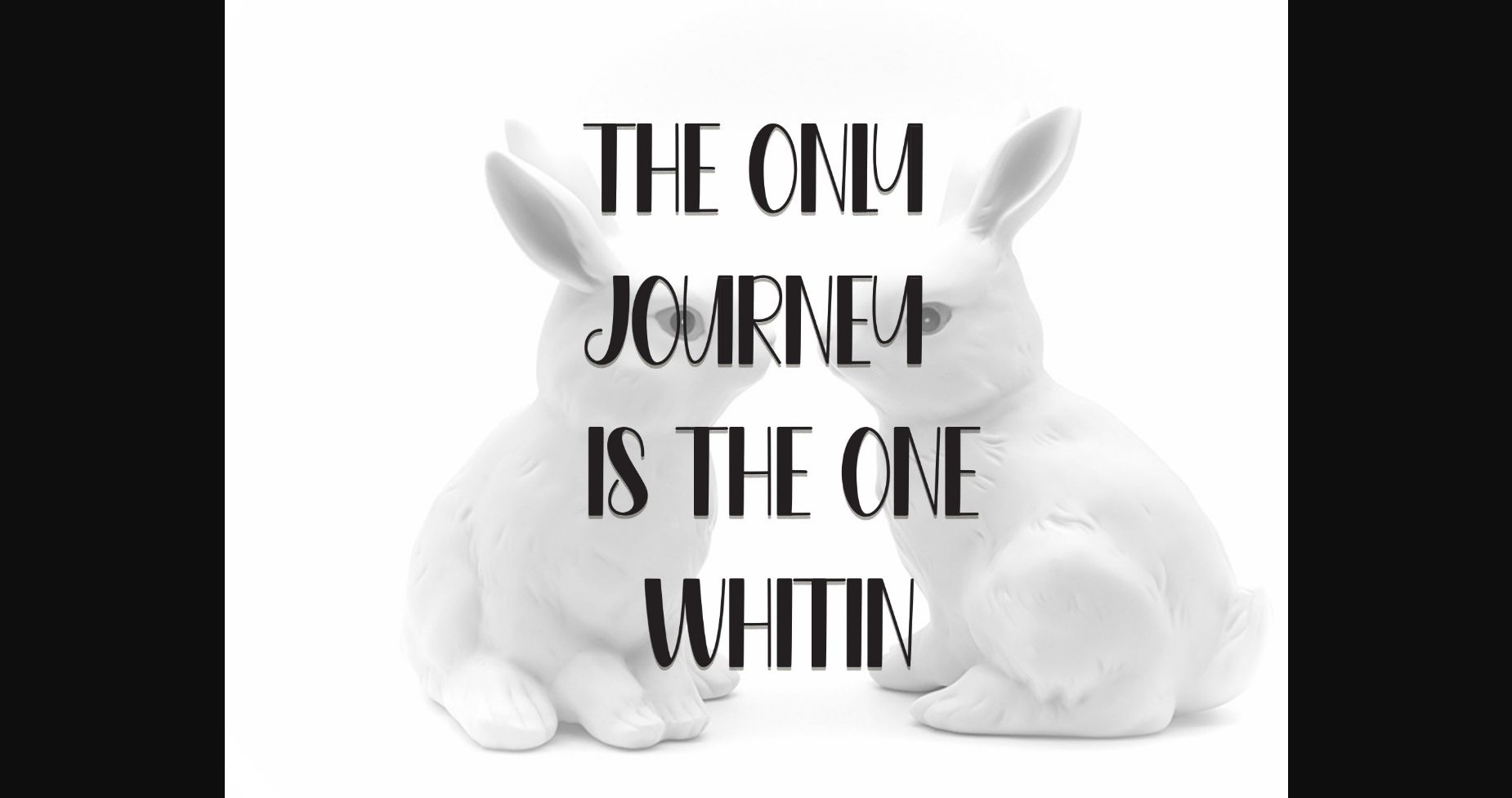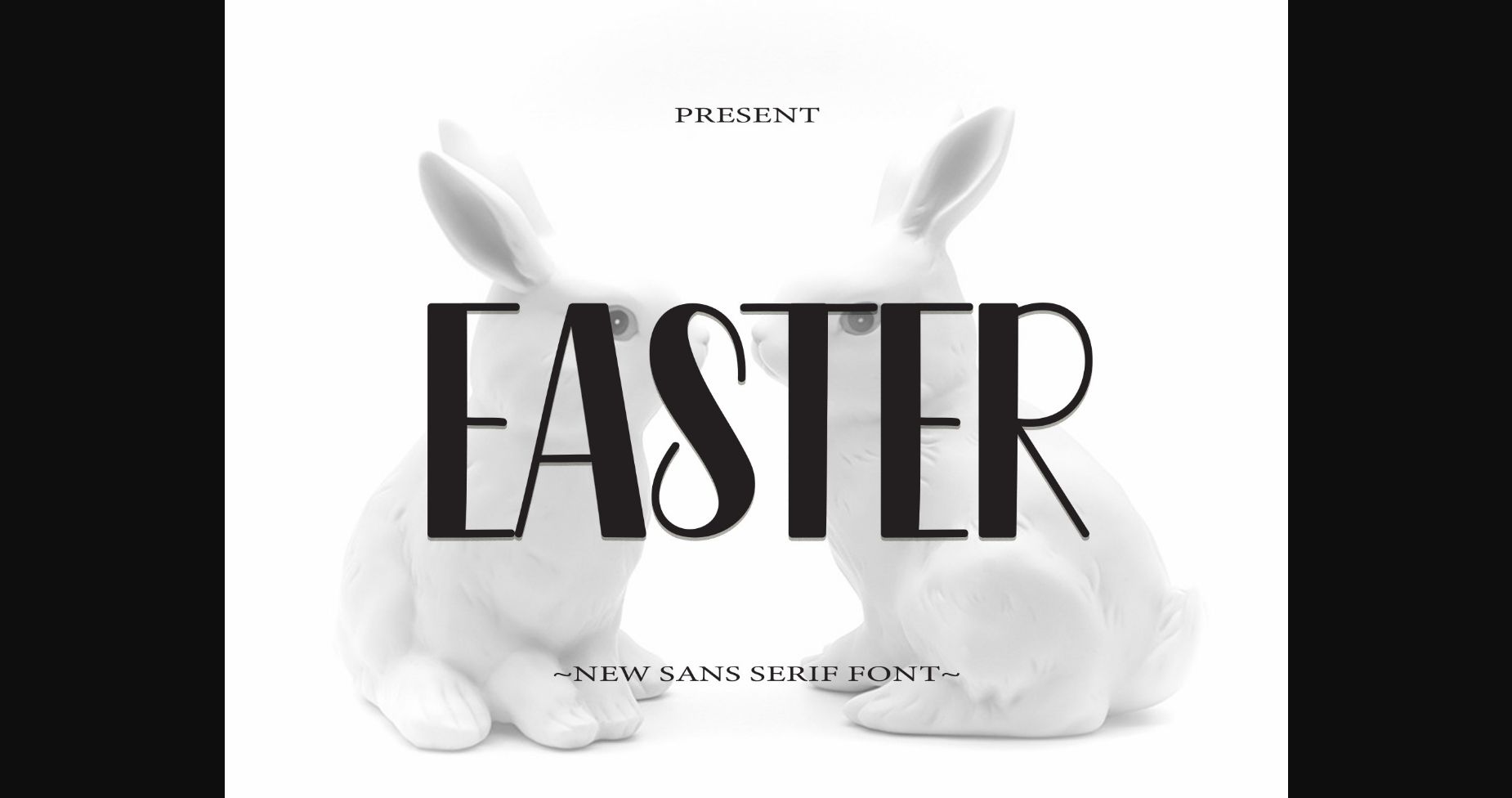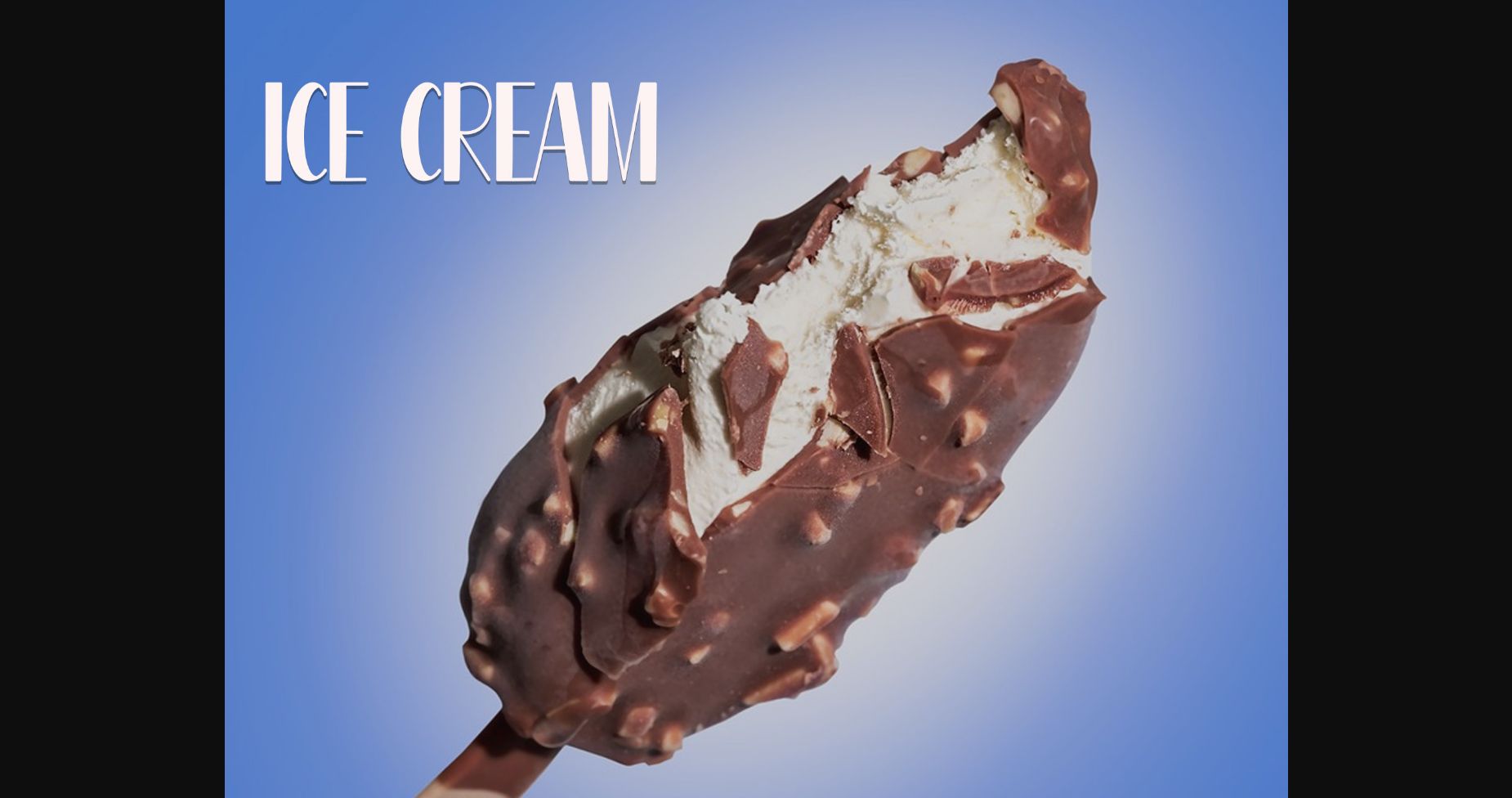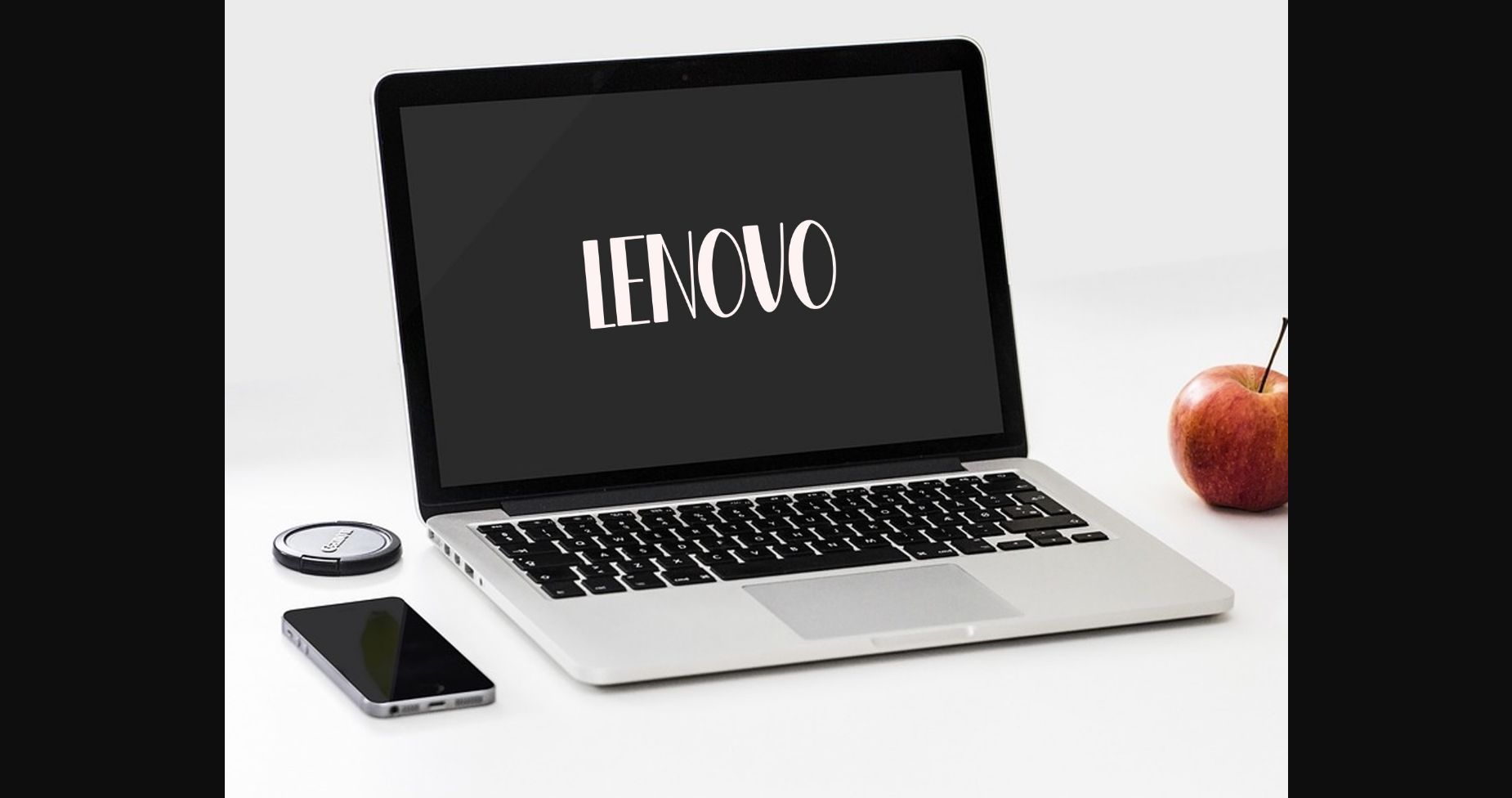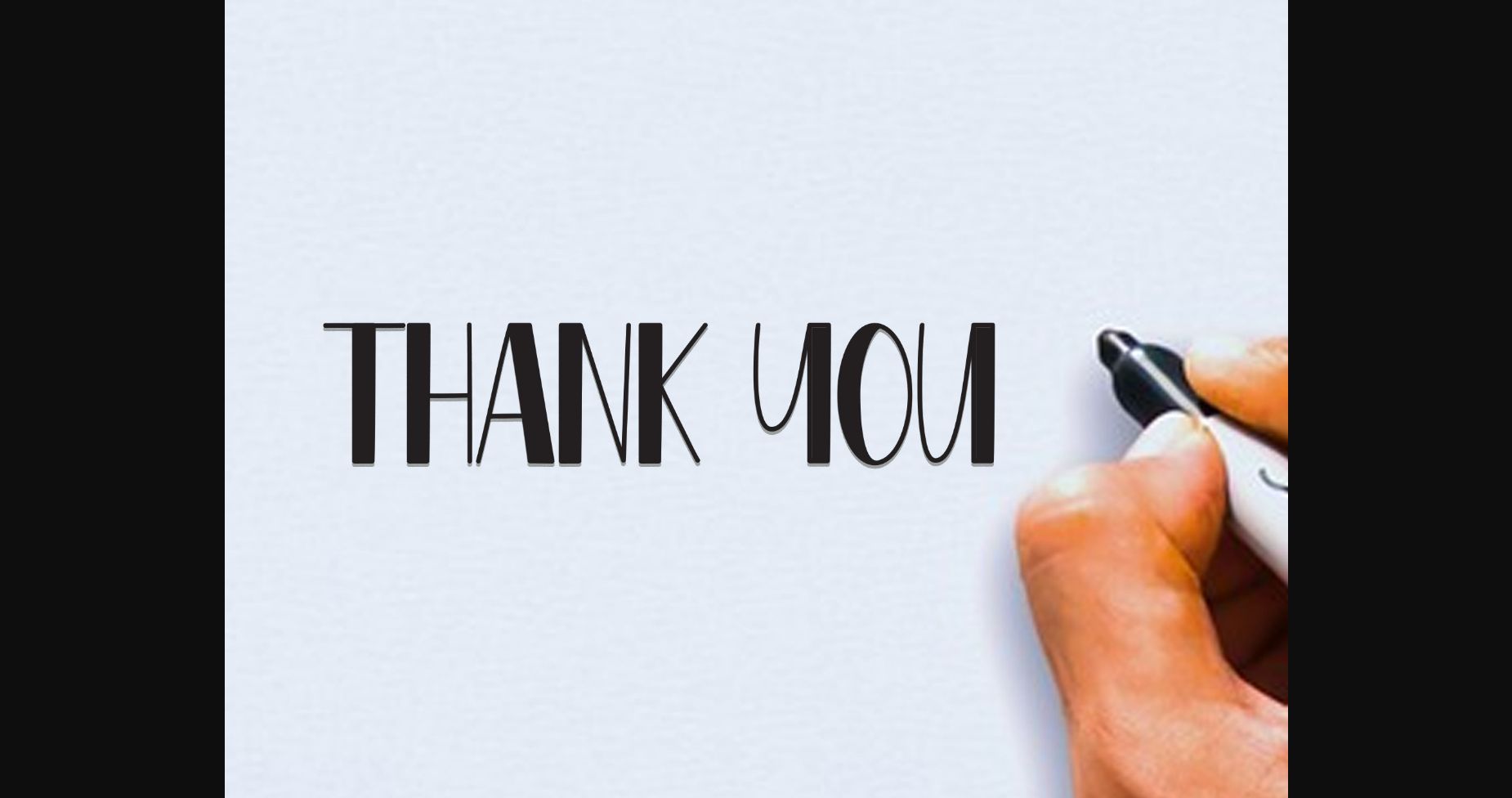
EASTER Font
About EASTER Font
EASTER is a unique handwritten font that was crafted with great care to produce the expected results. This font can be used to write titles, invitations, letters, and other types of products.